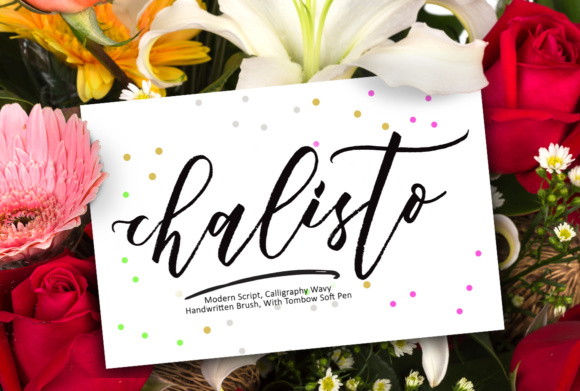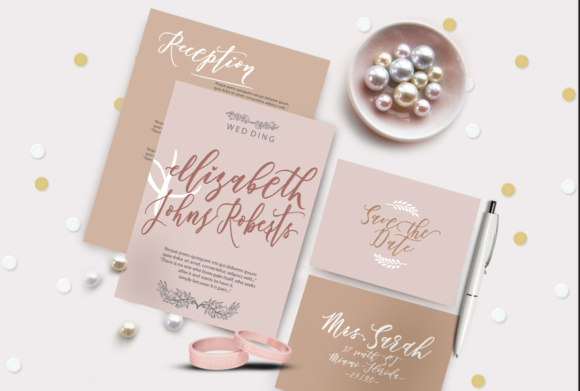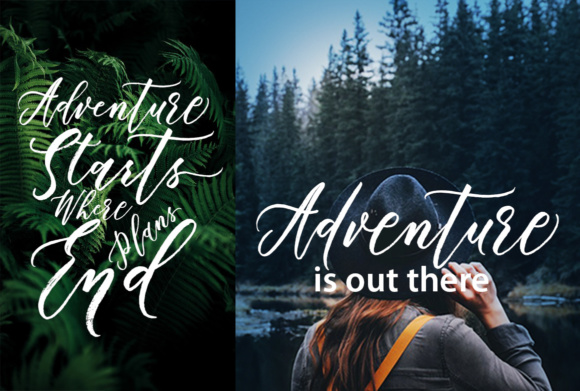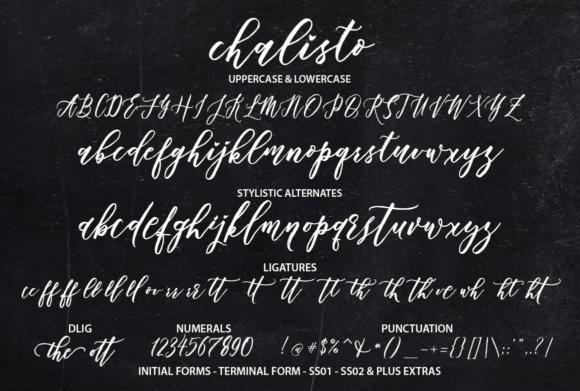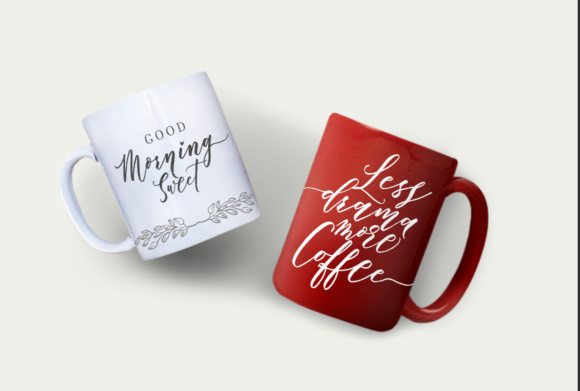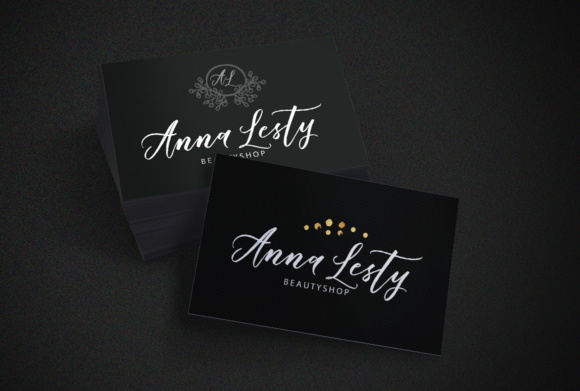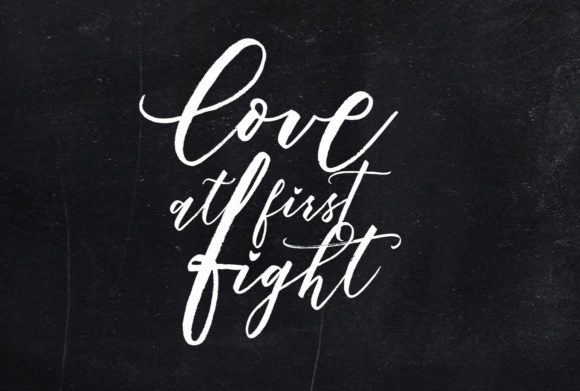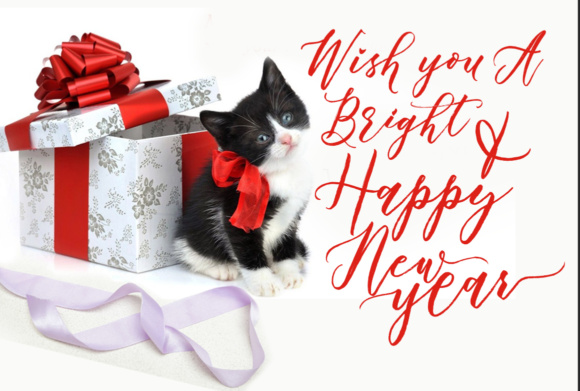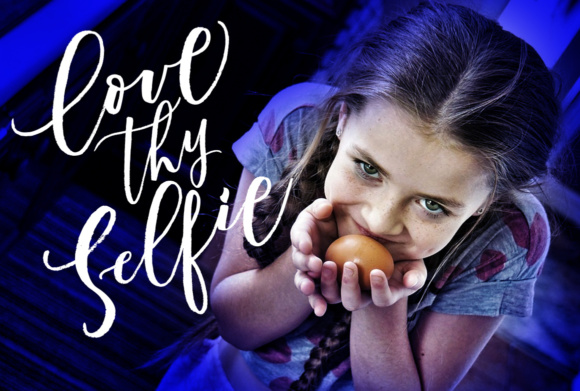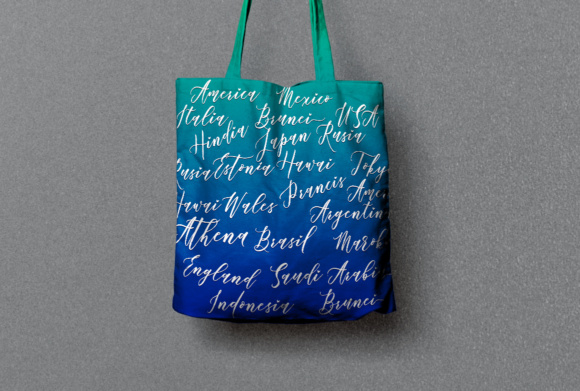
Chalisto Font
About Chalisto Font
Chalisto is a beautiful calligraphy font, ideal for use in a wide range of project types. This font has an appealing dropped baseline and irregularities that keep it modern and fresh.